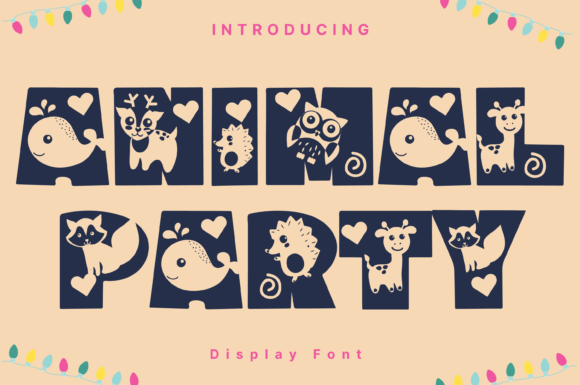
Journey into a realm of captivating typographic artistry with Animal Party Font, a display font designed to make your designs shine. Crafted by the renowned AchiArt, this exclusive and splendid font is a masterpiece that transforms your creative visions into captivating realities.
Unleash your creativity and let Animal Party Font ignite the imagination within. This display font exudes a unique and modern flair, injecting life into your designs whether they be social media posts, invitations, posters, or any other medium your imagination desires.
Dive into a sea of possibilities with Animal Party Font. Its versatility knows no bounds, catering to a myriad of design aesthetics. Craft eye-catching headlines that demand attention, design logos that exude personality, or create invitations that spark anticipation. Let your designs run wild and dance to the rhythm of Animal Party Font.
Beyond its aesthetic allure, Animal Party Font possesses a practical side that makes it an invaluable asset in the world of design. With its carefully crafted kerning and spacing, readability takes center stage, ensuring your message is crystal clear and impactful. Embrace the power of seamless communication with Animal Party Font.
Take the first step towards design excellence and elevate your projects with Animal Party Font. Its charm and sophistication will captivate your audience, leaving them spellbound by your creative prowess. Join the ranks of discerning designers who recognize the transformative power of typography and embrace Animal Party Font as the key to unlocking their true potential.
Welcome to the Animal Party, where creativity takes center stage and your designs come alive. Join the celebration of visual artistry and embark on a journey of typographic exploration with Animal Party Font, the display font that will ignite your imagination and transform your designs into masterpieces.